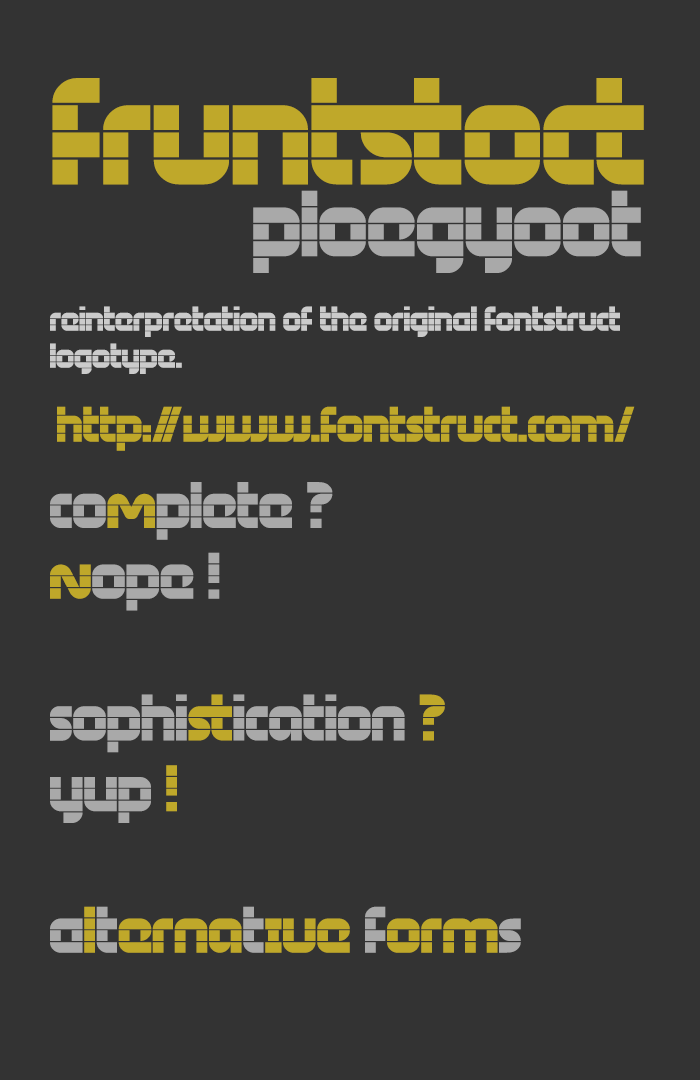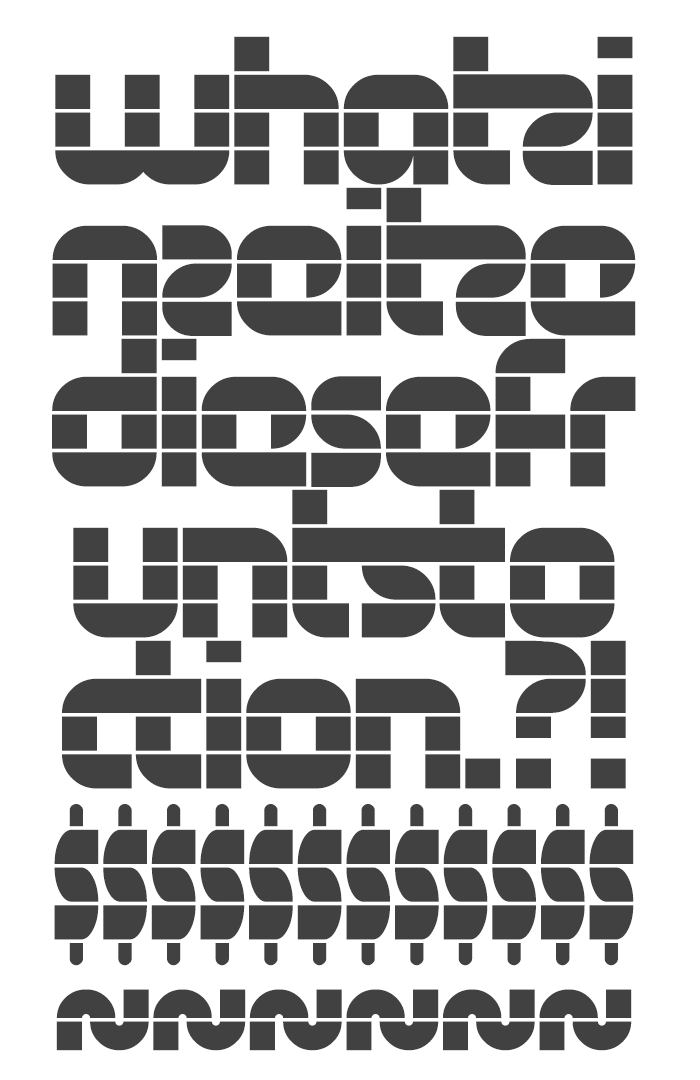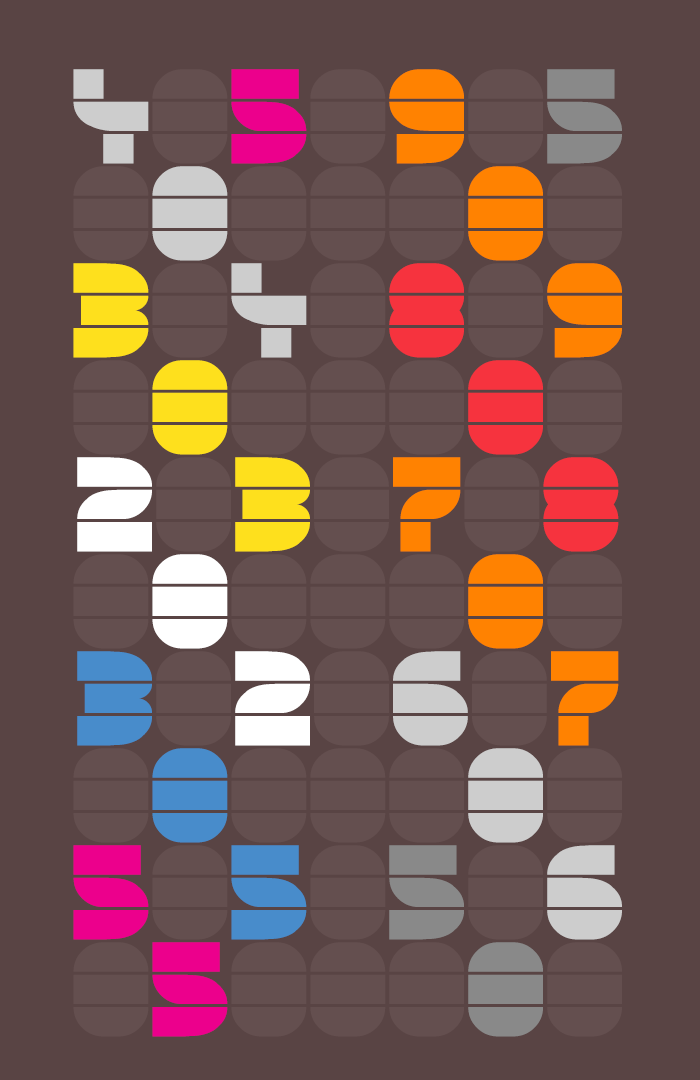
• FRUNTSTOCT — FontStruct logotype reinterpretation
For all ya failed attempts at re-creating the FontStruct logo typeface.
Many have tried their take on it, most without convincing succes, and often looking downright horrible.
Two of the most commonly made mistakes are..  1) The introduction of a uppercase alphabet  2) Having a tendency for including far too many stuff in terms of extended language and typographic support, aiming for large multi-lingual character-sets with as many glyphs possible.
The lettering for the FS-logotype has this very distinctive modular geometric stencil concept. The underlying glyph structure consists of 5 horizontal rectangular segments, that together with a custom set of simple geometric blocks form a modular system that can be easily re-modeled or re-arranged to form the different letters and required parts that help to distinguish each individual letter from one another.
The modular system itself is highly simplified and easily accessible to implement additional changes. But typically speaking a simplified modular system comes at a price. And the further a system was simplified, the greater the amount of limitations will be. Which literally translates to a reduction in overall design depth and freedom to implement a more diverse complexity.
In case of this FS-logotype concept, there are a number of key components that put in place this very strict window of parameter-locked propperties, that exclude all but a few remaining options which could still be exploited, and therefor fully dictate whatever is, or is not possible.
Having only 5 segments, limited geometric components and highly restrictive rearrangeable capabilities towards implementing variation all adding up to the difficulty-level for extrapolating some of its more complex and- / or denser forms, symbols accents and puntuation marks.
To cramp excessive amounts of complexity into a very narrow band of realestate would have a certain negative wear on its aesthetic qualities. And is likely to result in a combination of messy glyph composites and queer-looking letter-inventions, contrapped in a mish-mash of irregular and gawky looking, at times even disfiguring geometry that sit at the heart of this problem.
This is exactly where those bad choices can either make or break your font. The modular system for FS's lettering clearly isn't the most suitable of fonts for uppercase forms and complex geometry.
This doesn't mean that it is impossible, as was demonstrated by a small number of re-interpretations that actually do include fairly decent uppercase inventions. One of such that have successfully pulled off the inclusion of a uppercase set for his rework of the logo typeface was Zhalgas Kassymkulov—previously known as architaraz.
His attempt is a beautiful display of craftmanship and clever simplicity.
Here is a list of attempts that I think are successful re-interpretations of the original FontStruct logo:
— WHUTZINSIDE THIS FRUNTSTOCTION?
Now, a extensive explanation for the decision to not include uppercase forms to the font, as well as for the constraint on total character amount had been broadly covered above. I think that small caps numeral figures make a much more sleek looking glyph, and tying the overall character set much more together as a whole.
Another, and I say, rather more unique feature found in my version of the lettering is only a subtle one in fact. One that mostly works invisibly, that without the awareness of the reader, is easily missed. And can only truly visually materialize and appreciated seen up close. This is the implementation of several slight deviations and custom sculpting of certain curvatures and round features. Introducing an ever so slightly more diverse dynamic, but also taps deeper into some of that shape contrast propperties.
In addition to that I've also included several glyph alternative forms and small number of ligatures to play around with.
among these glyph alternates there is also this continuous string of 13 rather experimental looking glyph variations for the lowercase letter 's'.
These aren't actually meant to be usable characters, but instead is a collage of different configurations that make various curved geometry, and are simply stored in a glyph-style fashion that provides an actual physical estimation on their appearence and for me to test their functional values in a text format.